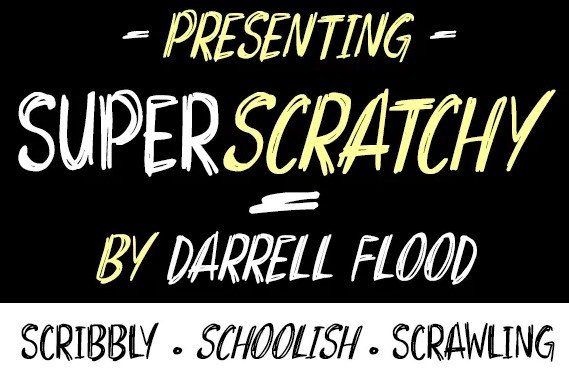
We offer the Super Scratchy Font, an elegant typeface featuring a wide range of scripted textures. This typeface was created by the talented designer Darrell Flood.
This is a great scratchy typeface which you will give you a unique design and look which you will used as pairing with the combination of klinic slab font. There are lots of ideas that you can used this font in designing covers photos, posters, banners, Facebook covers etc. It can be download for free.